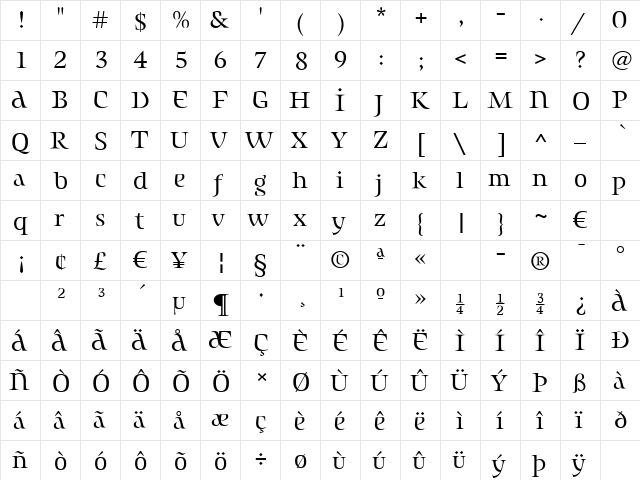
Amulet Regular
Design Context for Amulet Typeface
Amulet is a composed and adaptable typeface that performs quietly and consistently across a wide range of design contexts.